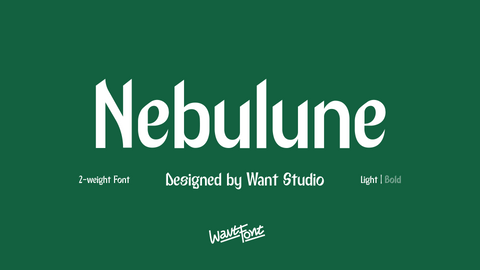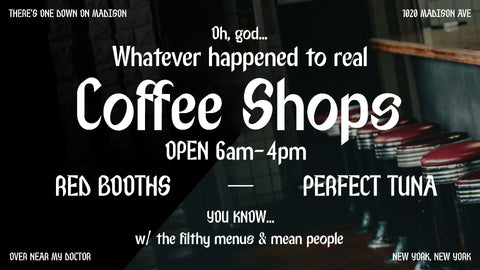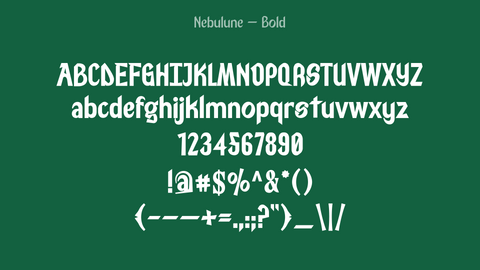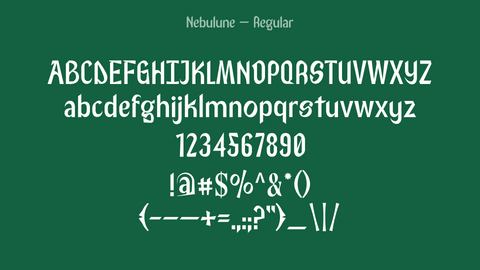
Nebulune Font - Modern Style with a Side of Nostalgia
Meet Nebulune, the sorta-scripted display font that blends a modern aesthetic with a hint of nostalgia.
This font has been thoughtfully designed to enable brands to connect more emotionally with modern consumers. The balanced characteristics of Nebulune, combined with unique details such as its curved yet geometric form and prominent x-height, make it perfect for crafting strong headlines and outstanding logos. It’s equally suited for pull quotes and featured text, offering versatility across various applications.
Font Features:
• Two Weights: Providing flexibility to switch between lighter or bolder tones, adapting to both subtle and striking design needs.
• Distinctive Design: Nebulune's blend of script-like touches and modern lines create a captivating presence that's hard to overlook.
Nebulune is ideal for enhancing your social posts or creating a memorable brand. It embodies the spirit of those timeless coffee shops—full of character and nostalgia—yet delivers it with the sharpness and clarity needed in today’s competitive design landscape.
Step into the world of Nebulune—a font that not only meets the aesthetic demands of contemporary design but also enriches emotional connections, making every word count.